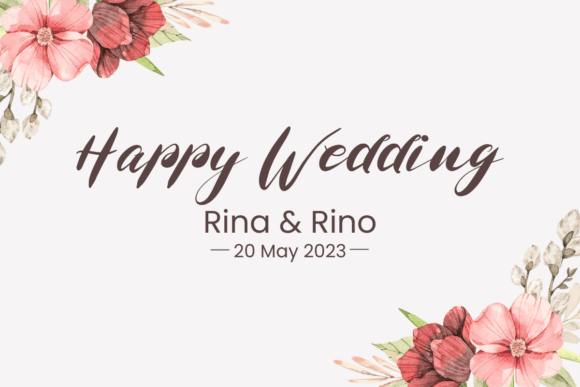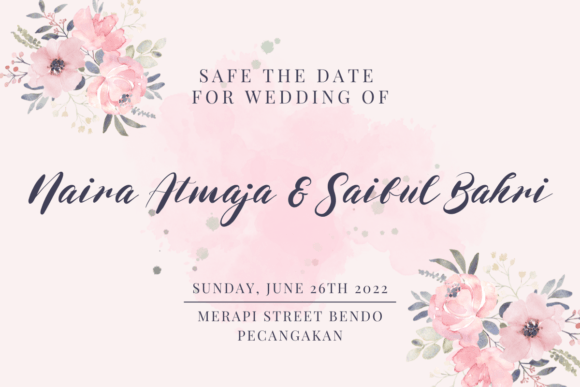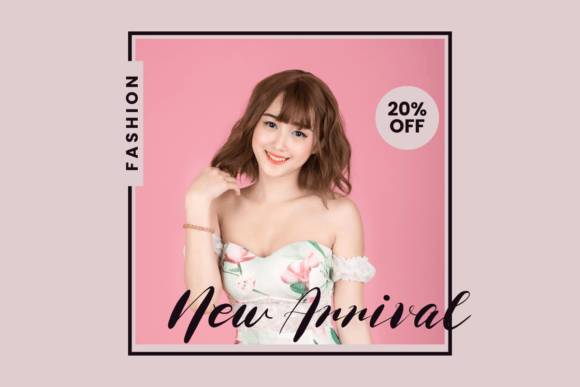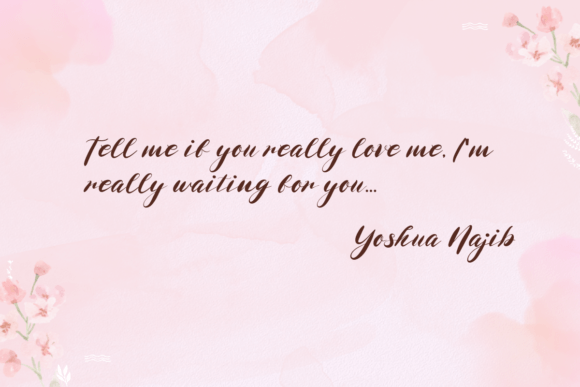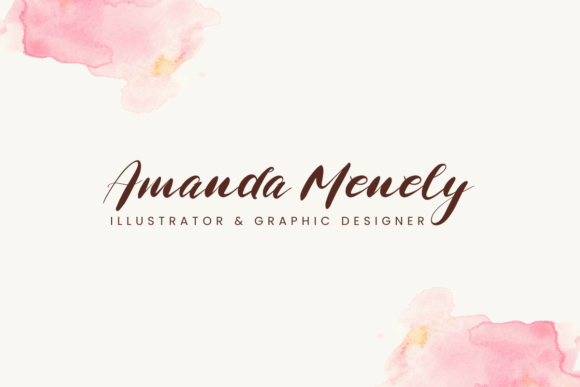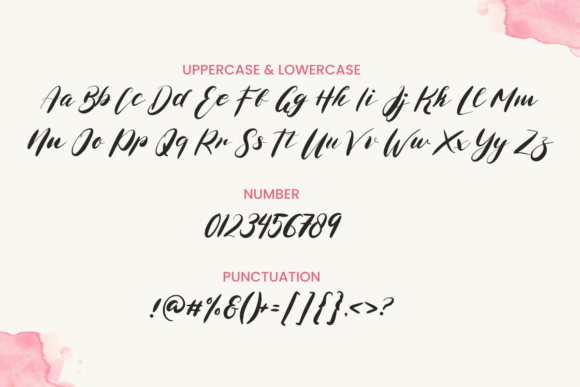
Introduction to Mellyani Font
Have you ever stared at a blank canvas, feeling the creative juices flowing, but struggling to bring your unique vision to life? This is where the perfect design resource can make all the difference. For designers seeking to add a touch of whimsy and personality to their projects, the Mellyani Font is an absolute game-changer.
This charming handwritten font is more than just a pretty face – it’s a versatile tool that can elevate your designs and leave a lasting impression. With its high-quality, handwritten feel, Mellyani Font is perfect for a wide range of creative projects, from labels and quotes to posters and branding materials. Whether you’re working with a transparent background or adding a touch of personality to your website, this font is sure to make your designs stand out.
- The Mellyani Font is available in a single weight and style, providing a clean and minimalist aesthetic for your creative project.
- Mellyani Font is a great choice for designers looking for a unique and creative design element to elevate their projects.
Honest Review: Mellyani Font
I recently stumbled upon the Mellyani Font while searching for a unique design resource for a creative project. As a designer, I’m always on the lookout for high-quality fonts that can elevate my work. In this review, I’ll share my honest thoughts on what works well and what could be improved.
- Unique and elegant design aesthetic
Overall, I’m impressed with the Mellyani Font’s design and versatility. While it has some limitations, it’s an excellent choice for designers looking for a high-quality, unique font for their creative project. With its transparent background option and free download, it’s a great resource to have in your design toolkit.
The Mellyani Font is a high-quality design resource perfect for creative projects that require a unique and elegant touch. With its transparent background, this font can be easily layered over any image or design element, making it a versatile tool for graphic designers and artists.
The Mellyani Font is perfect for a variety of creative projects, including:
Branding and logo design
Web design and development